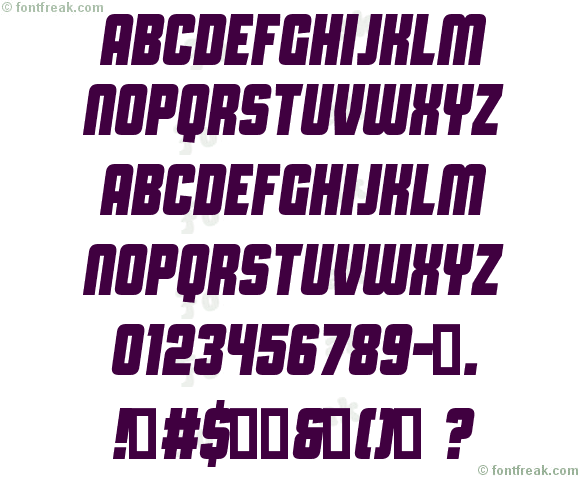
Capital Daren Regular
Capital Daren Italic
About Capital Daren Regular
The Capital Daren Regular font, designed by Jayvee Enaguas, is a striking display typeface that falls under the sans-serif category. Released between 2009 and 2012, this font showcases a bold, contemporary aesthetic that is both eye-catching and versatile. Its stroke weight is consistent, providing a sturdy appearance, while the overall character design offers a balanced contrast that enhances readability. The letters are tightly spaced, contributing to a compact and cohesive look, making it suitable for a variety of applications.
Capital Daren Regular is particularly well-suited for use cases such as branding materials, where a strong visual impact is essential. It works excellently on movie posters, capturing attention with its bold presence. Additionally, the font can elevate restaurant menus, offering a modern touch that appeals to diners. It is also an excellent choice for promotional flyers, as its clear lines and authoritative look can effectively communicate information. Graphic designers, small business owners, and content creators will find this font to be a valuable asset in their toolkit, as it adds a unique flair to any project.
What sets the Capital Daren Regular font apart is its distinctive character and versatility. This typeface strikes a perfect balance between modernity and functionality, making it an ideal choice for those looking to make a memorable impression. The Capital Daren Regular font free download allows users to experiment with its bold design in various creative endeavors without any financial commitment. Whether you’re crafting a brand identity or designing a striking visual layout, this font's unique style will undoubtedly enhance your projects and resonate with your audience.